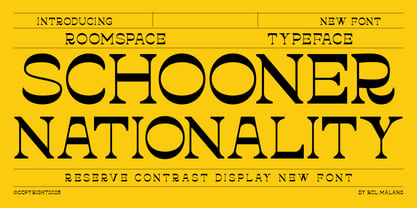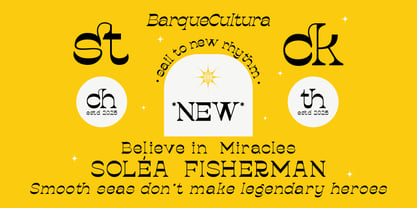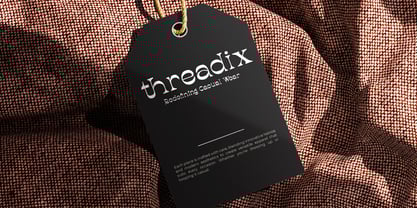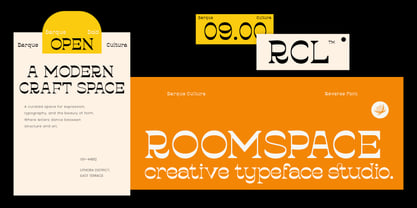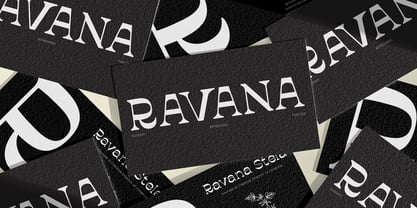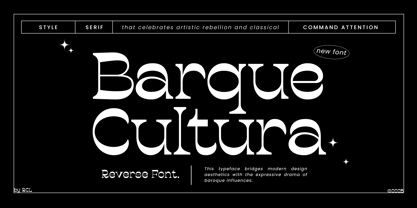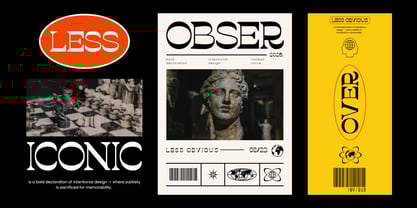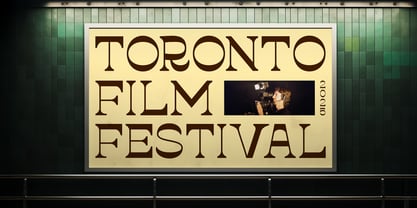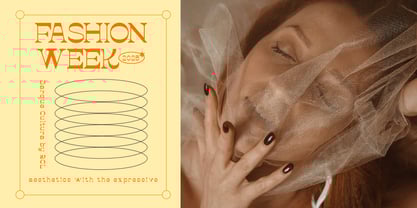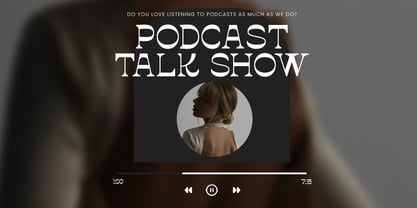
Barque cultura
by Jafar07
The Barque cultura Font Family was designed by Bakhrudin Ja'far and published by Jafar07. Barque cultura contains 3 styles and family package options.
Introducing Barque Cultura a bold modern serif display font where dramatic flair meets refined aesthetics. Barque Cultura draws inspiration from baroque elegance and cultural expressionism, featuring high contrast strokes, sculptural curves, and unconventional forms. This reverse serif typeface is designed to stand out perfect for making a statement in editorial layouts, fashion branding, cultural posters, and artistic identity systems. Each glyph is carefully crafted to feel sophisticated yet experimental, making Barque Cultura ideal for designers seeking a font that blends classical richness with modern creativity. With both timeless elegance and contemporary rebellion in its DNA, this font brings drama and beauty to every composition.